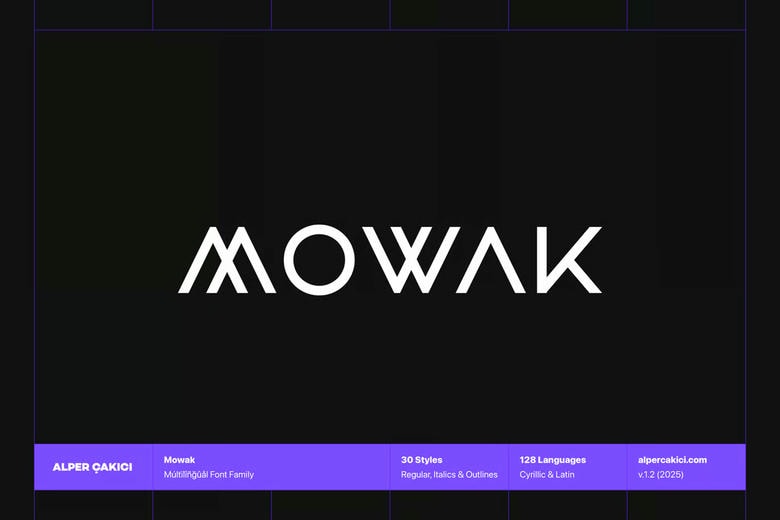
Mowak Font Family
Mowak Font
Mowak Font is a modern, rounded typeface made for creators who want clean shapes with a softer look. Its smooth curves, even proportions, and sci-fi style make it a great fit for many different products and projects.
Mowak works with more than 120 languages, so it’s a flexible option for global projects. No matter what you’re designing, Mowak brings clarity, style, and a modern look.
Mowak Display Font Family